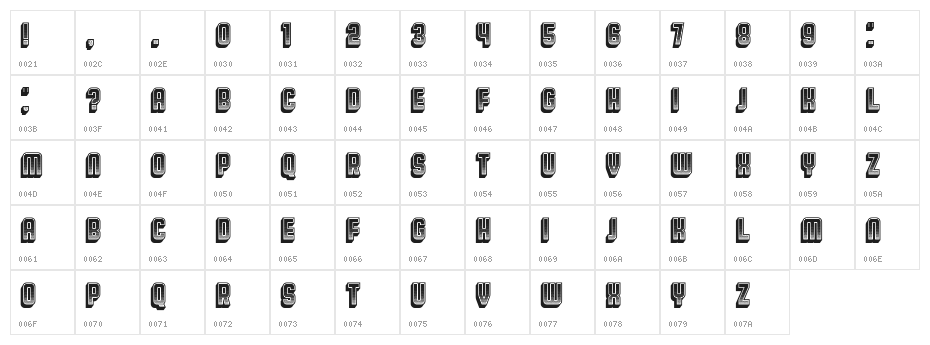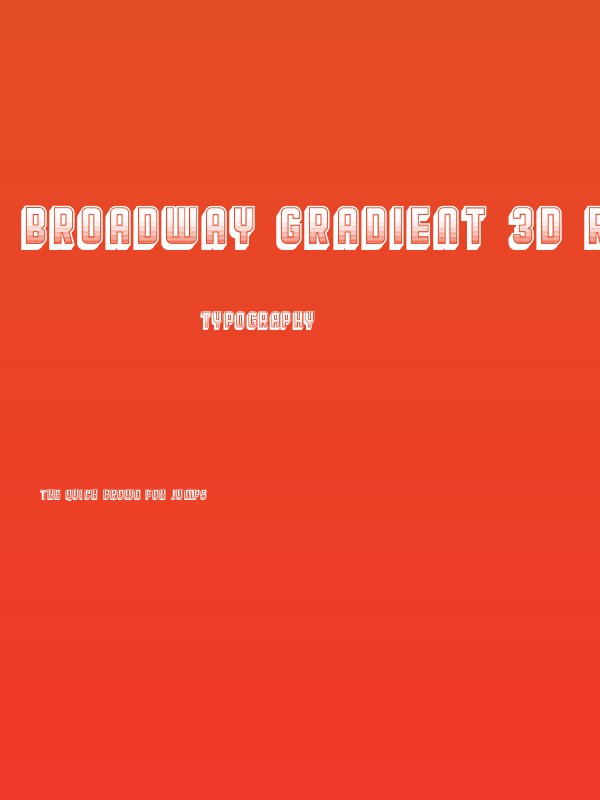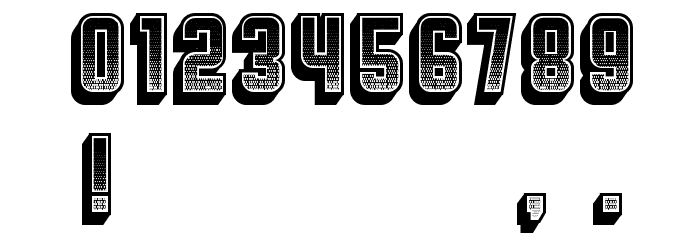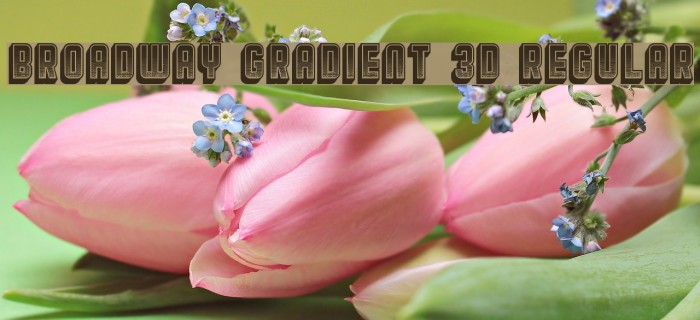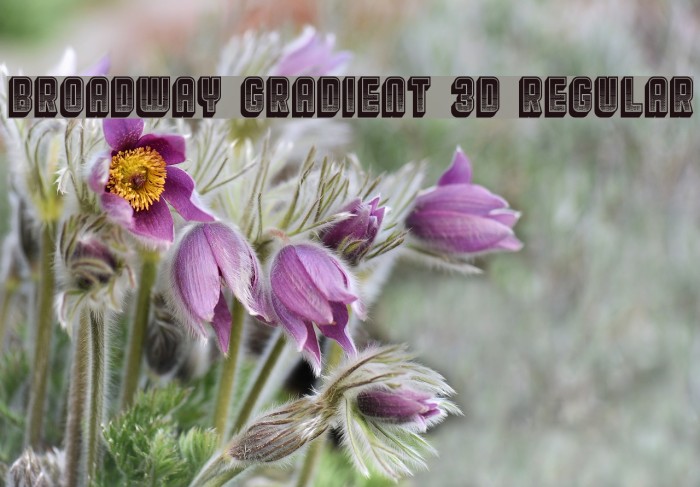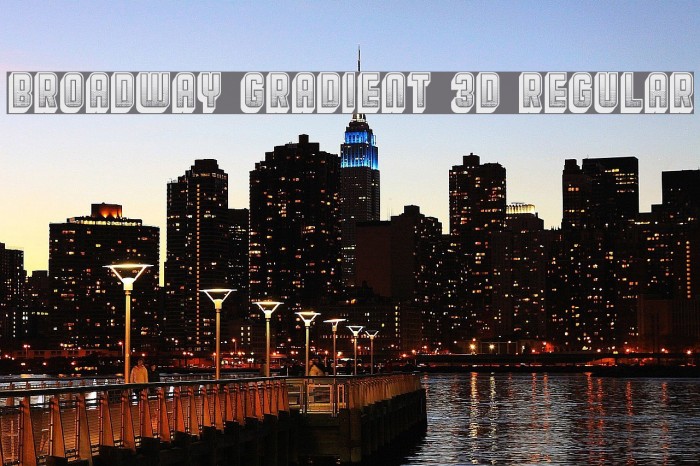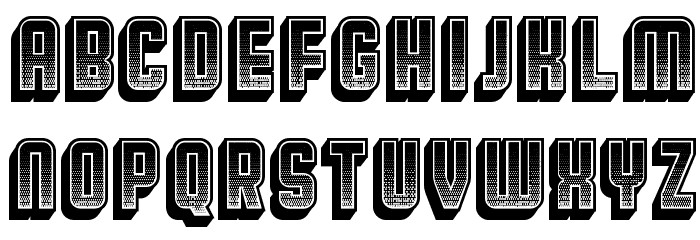
Broadway Gradient 3D Regular Font
Broadway Gradient 3D Regular Description
This font features a bold, three-dimensional style with a gradient effect that gives it a striking, eye-catching appearance. The letters are uppercase and have a strong, geometric structure, with thick strokes and a shadow effect that adds depth. The gradient within each character transitions smoothly, enhancing the 3D illusion. The font's design is reminiscent of vintage marquee signs, making it ideal for projects that require a dramatic and theatrical flair. Its bold presence ensures that it stands out in any design, making it suitable for headlines and display purposes.
Vladimir Nikolic - www.coroflot.com/vladimirnikolic
| Proposed Projects | Ideal for posters, signage, theatrical promotions, and any project needing a dramatic, vintage touch. |